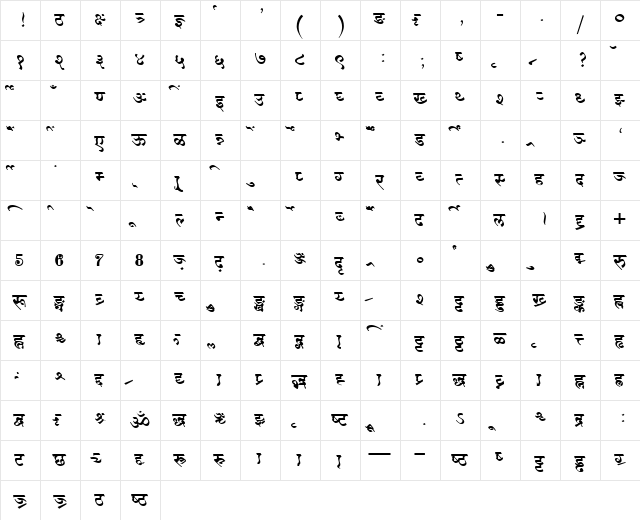
AkrutiDevCharu Bold
Design Context for AkrutiDevCharu Typeface
AkrutiDevCharu is a composed and adaptable typeface that performs quietly and consistently across a wide range of design contexts. The heavy weight commands attention and anchors typographic hierarchies.